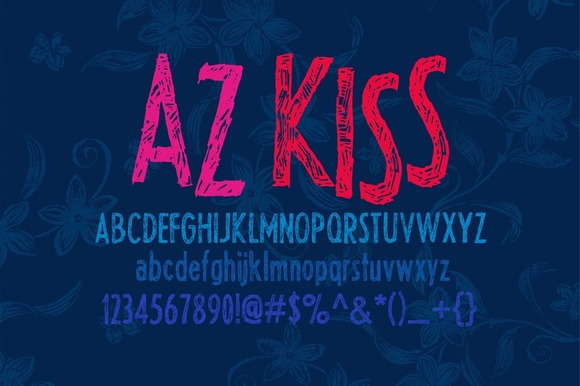
The AZ Kiss Font: A Playful Sans Serif for Creative Designs
I still remember the time I was working on a project for a children’s workshop, and I was struggling to find the perfect font. The design needed to be fun and engaging, but also easy to read. I tried out several fonts, but none of them seemed to hit the right note. That’s when I stumbled upon the AZ Kiss font. It was love at first sight! The playful sans serif letters looked like they had been drawn on a blackboard with chalk, and I knew I had found the perfect fit.
An Honest Review of AZ Kiss
- ✨ The playful, hand-drawn feel of the letters makes it perfect for kids’ designs that don’t need to be too childish.
- ✅ The font has great readability, even at smaller sizes.
- 🎉 The sans serif design makes it versatile and easy to pair with other fonts.
While I love the AZ Kiss font, there are a few things to keep in mind:
- ⚠️ The font may not be suitable for very formal or professional designs.
- 🤔 Some of the letters may not be suitable for use at very small sizes, as they can become a bit blurry.
One of the best things about the AZ Kiss font is its OpenType features and glyphs. These allow you to customize the font and add special effects to your text. Here are a few examples:
- Stylistic alternates: These allow you to switch between different versions of letters and numbers.
- Glyphs: These are special characters that can be used to add decorative elements to your text.
The Designer Inspiration Behind AZ Kiss
The AZ Kiss font was designed with the goal of creating a playful and engaging sans serif font that’s perfect for kids’ designs. The designer wanted to create a font that looked like it had been drawn on a blackboard with chalk, with a fun and energetic feel that’s perfect for creative projects.
Q: What is the AZ Kiss font?
A: The AZ Kiss font is a playful sans serif font that’s perfect for kids’ designs and other creative projects.